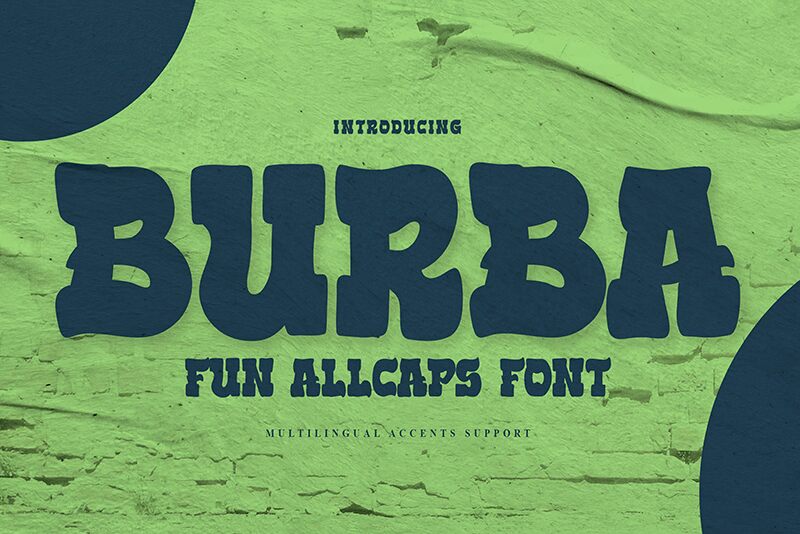
Burba, a creation by Gassstype, stands out with its bold and adventurous western style. This display font carries the spirit of the wild west, evoking images of dusty saloons and wanted posters with its strong, assertive stance. Its sturdy silhouette and impactful presence make it a natural fit for projects that require a touch of drama and old-world charm.
The robust nature of Burba lends itself beautifully to creative endeavors such as branding for breweries or steakhouses, event posters for rodeos or country music concerts, and any design work aiming to capture the essence of frontier life. Whether on digital platforms or printed materials, Burba is poised to leave an indelible mark with its distinct flair.